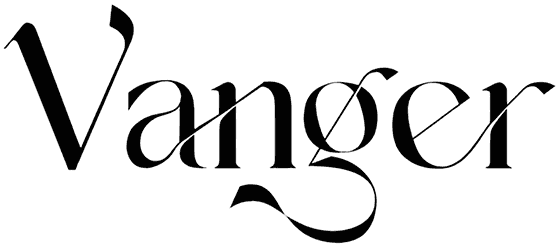
Vanger Font
We recommend the Vanger font because it is elegantly and modernly designed. With straight and concise lines and attractive, unique curves, if you are looking for a font to design fashion, packaging, branding, or any other creative project you have in mind, then this elegant font is the one for you. Need more inspiration? See around our ever-growing website and choose the best one!
Vanger _ modern serif font
Introducing the new Vanger Font Type with lots of unique ligature characters, alternatives and multilingual support.
Vanger impresses us with both Classical and modern Style by accessing the many alternative fonts in the Opentype Tool.
Vanger is the perfect font for branding projects, logos, magazine imagery, wedding invitations, posters, apparel, packaging, website headers, or simply as a stylish text overlay onto any background image.